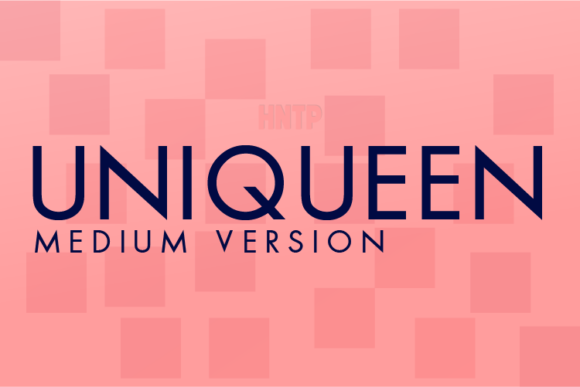
Prepare to be captivated by Uniqueen Medium Font, a geometric sans serif font that exudes timeless sophistication. Crafted by the renowned Huntype, this font boasts a distinctive blend of modernity and classicism.
Uniqueen's harmonious combination of sharp angles and smooth curves lends it an air of elegance and versatility. Its well-balanced proportions lend a touch of refinement to any project, making it an ideal choice for a wide range of applications.
Step into the world of corporate publishing and branding, where Uniqueen's crisp lines and legible letterforms convey a sense of professionalism and stability. Let it guide your readers through complex technical information systems, its clarity ensuring effortless comprehension.
Unleash your creativity with Uniqueen and elevate your designs to new heights. Its inherent versatility empowers you to craft eye-catching headlines, compelling body text, and impactful presentations that leave a lasting impression.
Embark on a typographic journey with Uniqueen Medium Font and discover the power of a font that truly embodies both uniqueness and sophistication. Let its timeless charm elevate your creations and captivate your audience with every stroke.